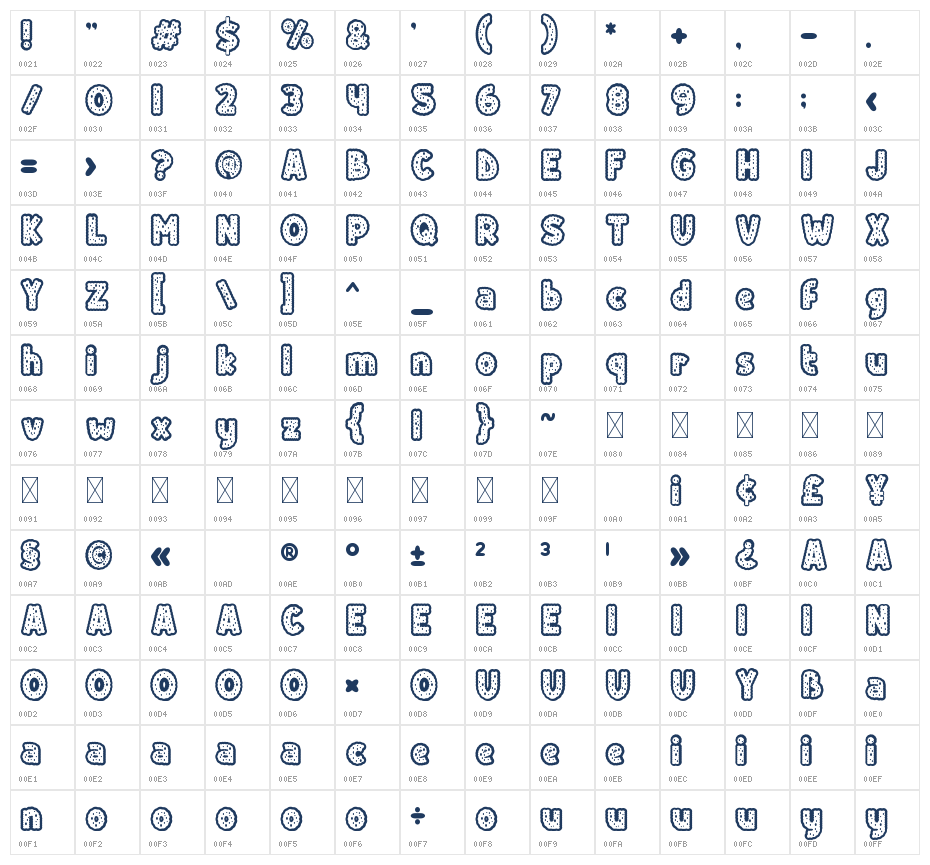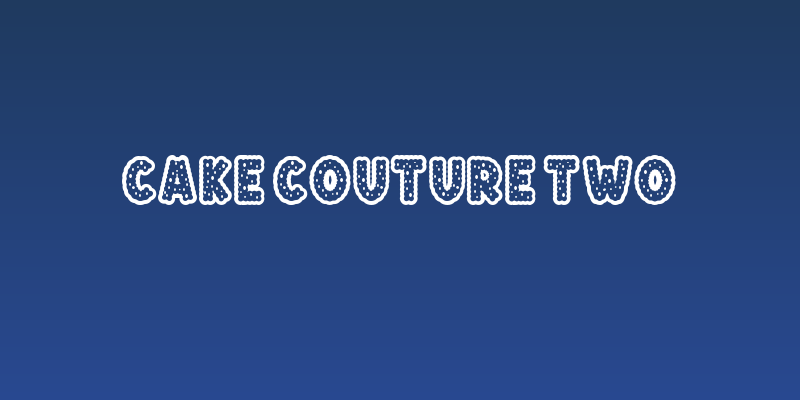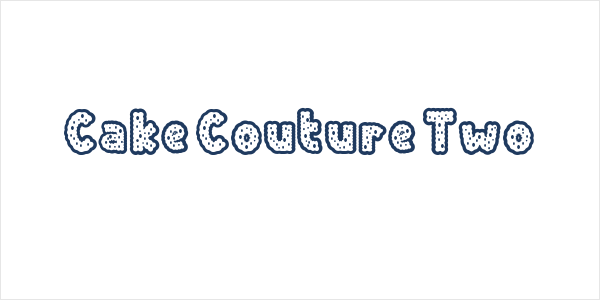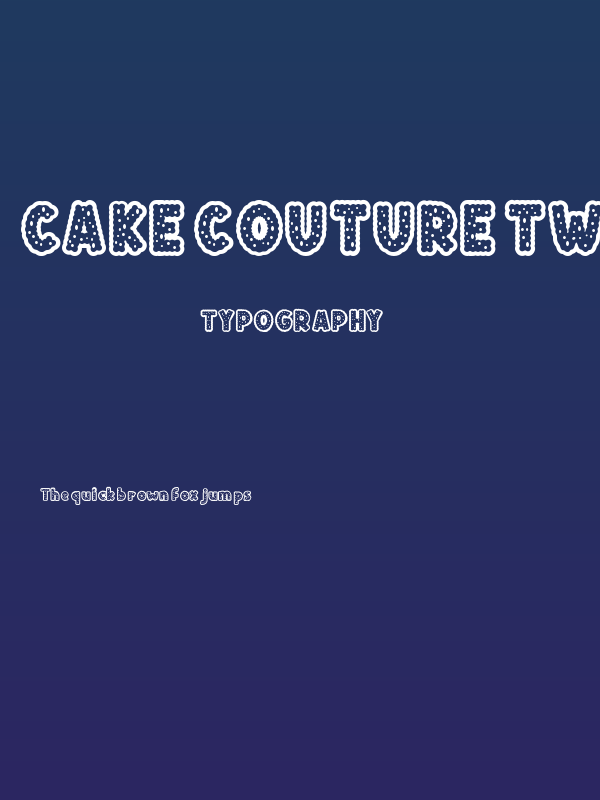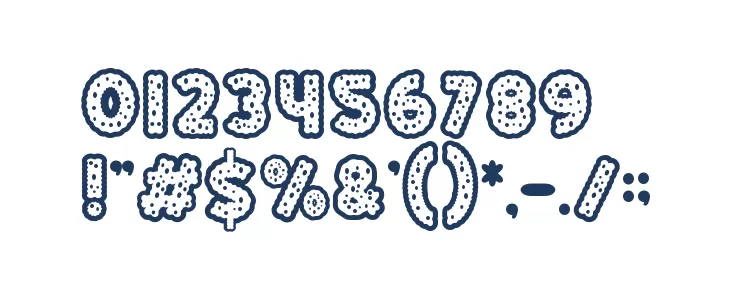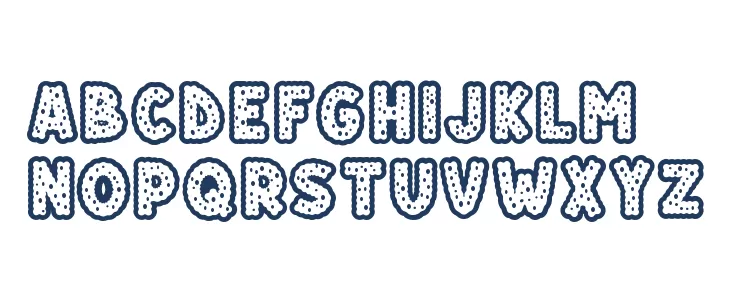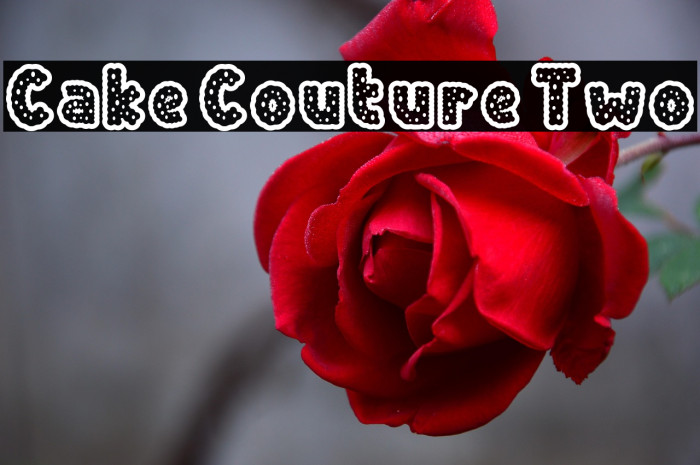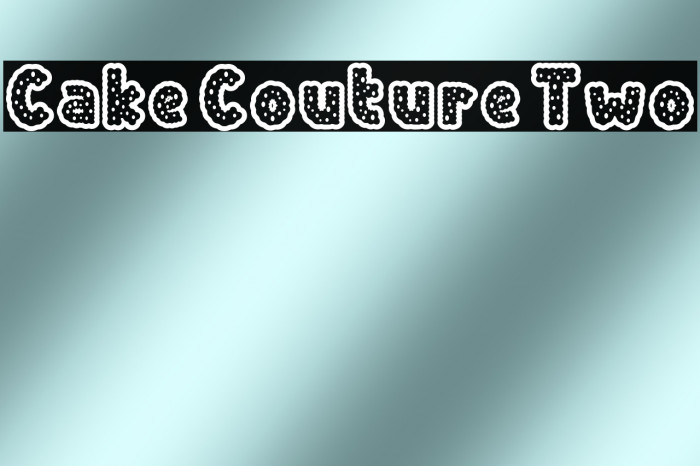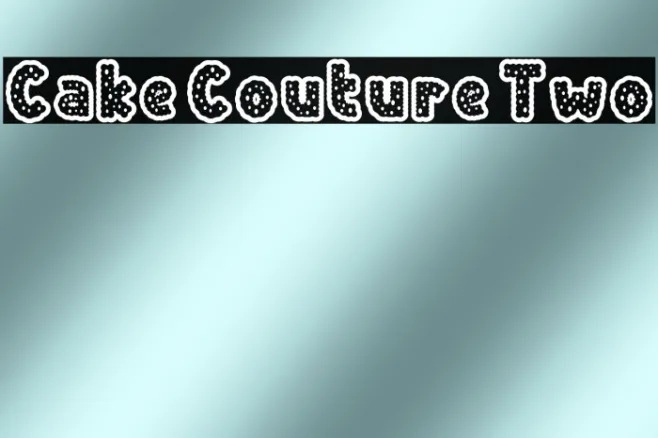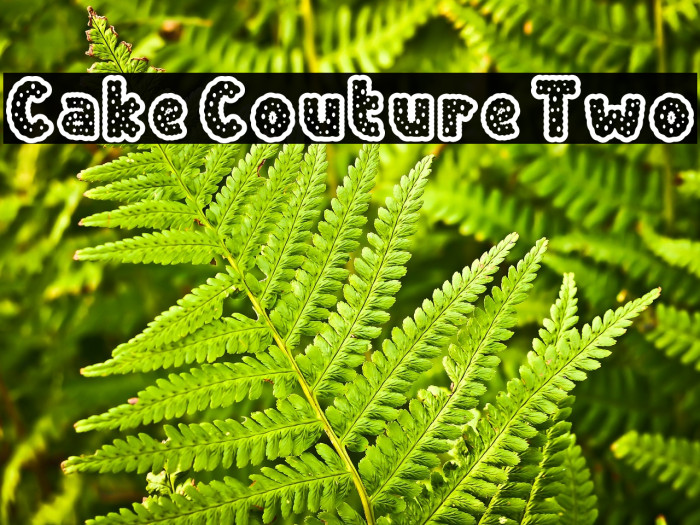
Cake Couture Two Font
Cake Couture Two Description
A playful, bubbly font with a dotted outline, resembling a fun, decorative style suitable for children or casual themes.
| Overall Style | Playful, Fun, Decorative |
| Use Case | Headlines, Titles, Logos, Children's products |